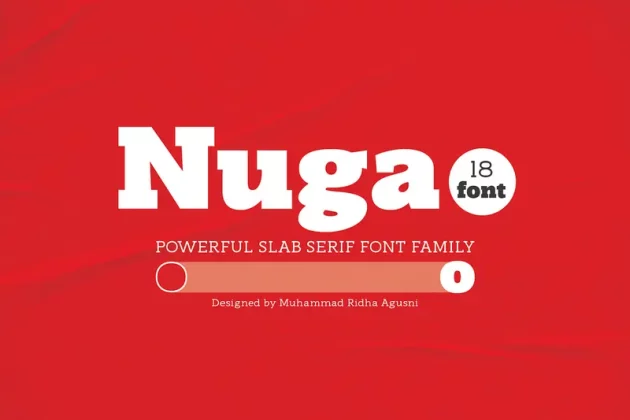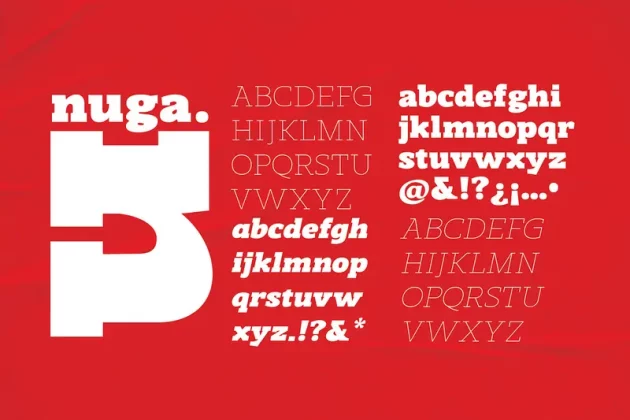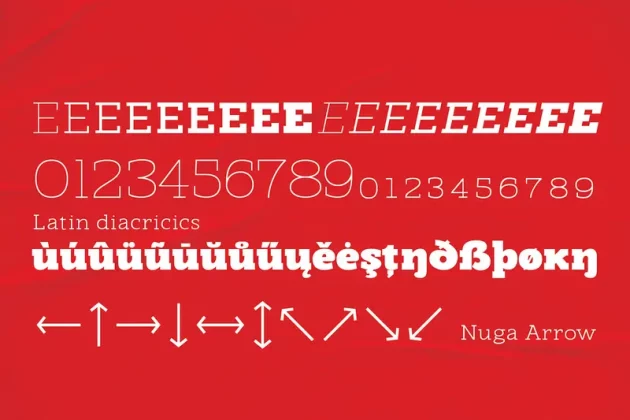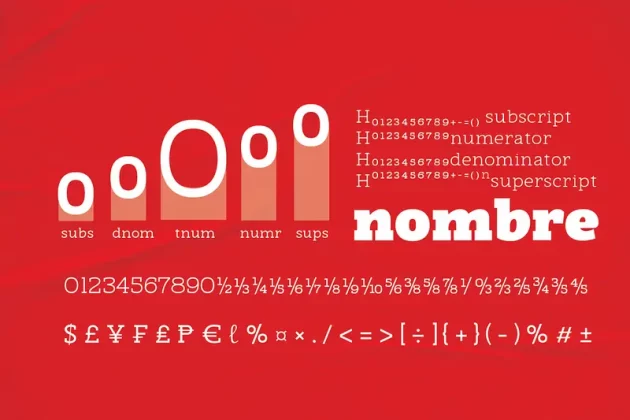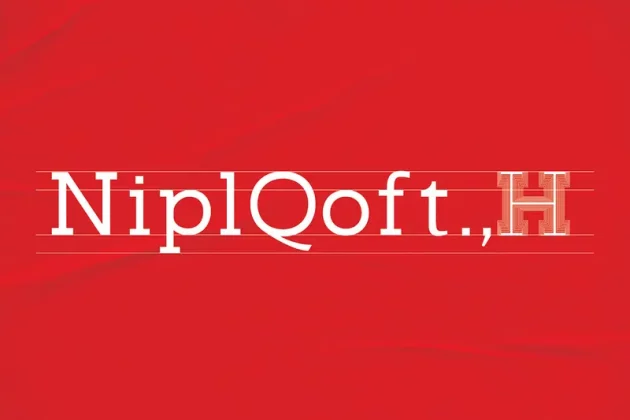
About Nuga – Slab Serif Font
The Nuga typeface embodies a commanding presence with its slab serif design, offering a versatile range across 9 distinct weights from thin to black. This extensive variety is further enriched by both regular and italic styles, totaling 18 distinct fonts.
Its robust nature makes it an ideal choice for titles, headers, and subheaders, lending an authoritative air to any text. However, it doesn’t stop there; Nuga’s versatility extends to paragraphs, making it suitable for both display and body text.
This font stands out effortlessly in branding, print materials, and logos, its powerful characteristics leaving a lasting impression on any design it graces.